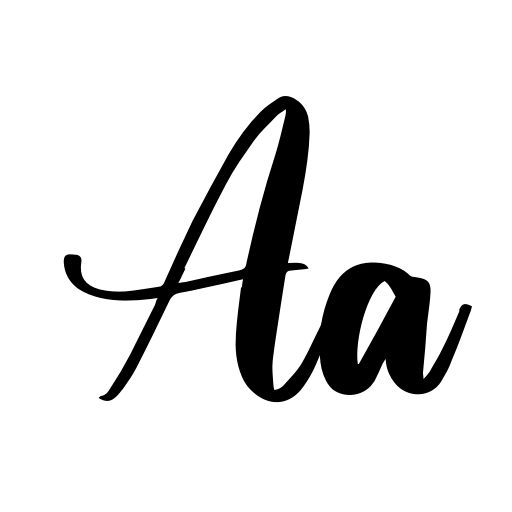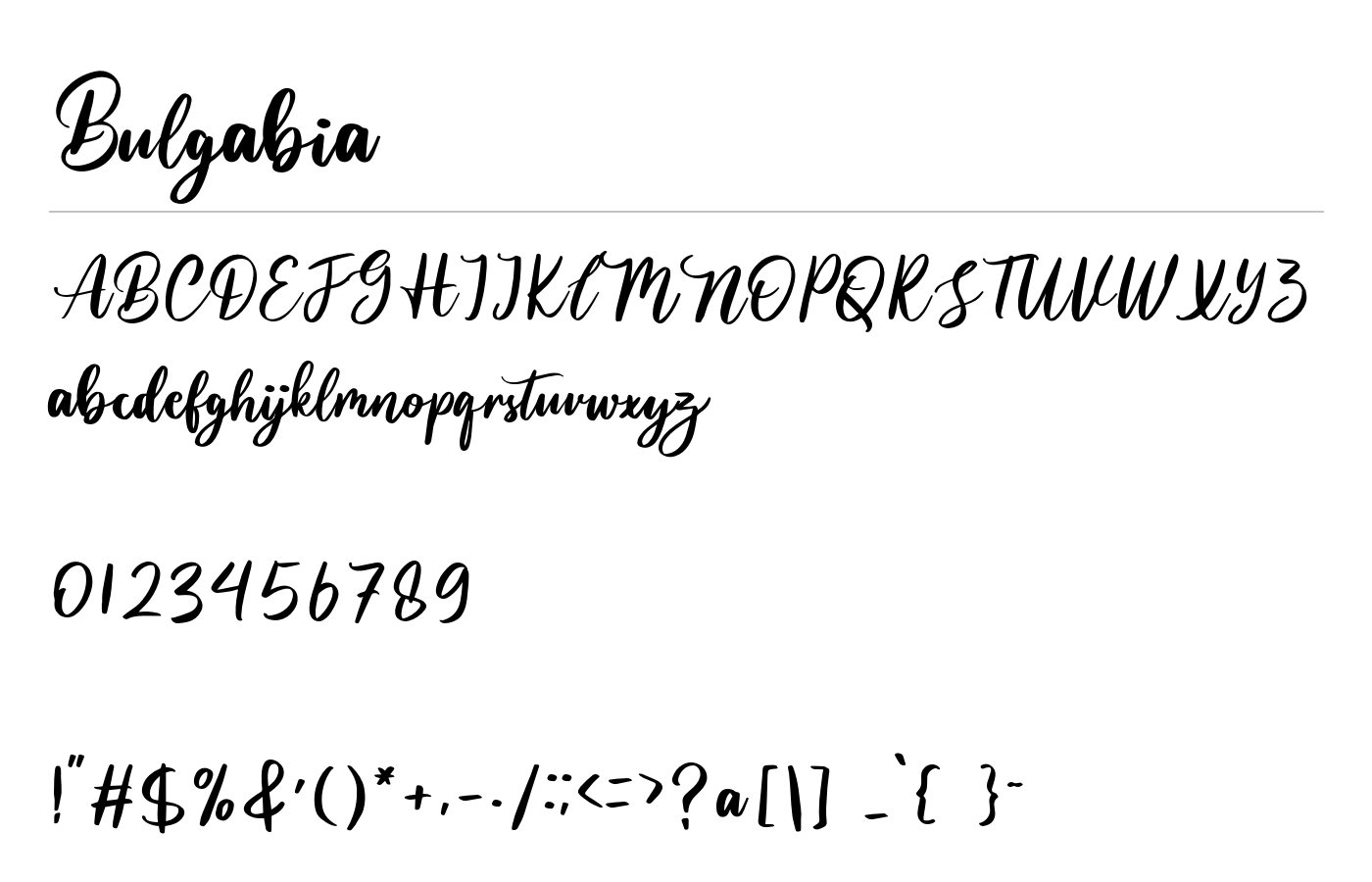
Bulgabia is a lively and elegant script font featuring smooth, flowing strokes with a moderate contrast that adds a personal, handwritten feel. It balances legibility and decorative flair, making it perfect for branding, invitations, and stylish headlines where a warm, creative touch is desired. This font brings charm and personality to designs while maintaining clarity and sophistication.
Bulgabia Font
| Designer | Hugefonts |